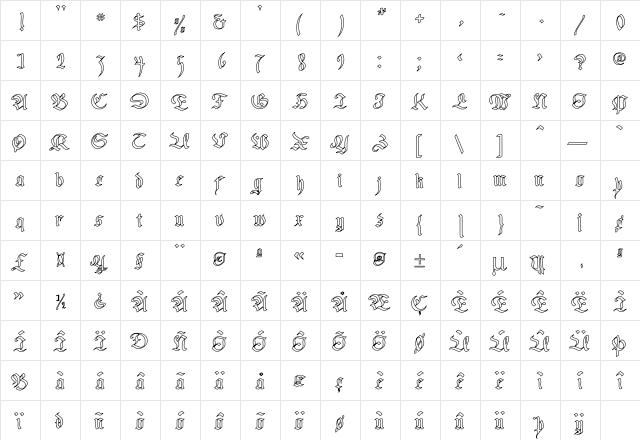
OldGerman Ho Regular
Design Context for OldGerman Ho Typeface
OldGerman Ho is a composed and adaptable typeface that performs quietly and consistently across a wide range of design contexts.
Pro Tip: Use OldGerman Ho in both headline and body roles to test its range before committing to a single application.